Do you think that the best font for Halloween should always be eerie and spooky? Although it’s a typical feature you find, these seasonal typefaces also come in diverse styles. They will not only spice up your creative project for that specific time, but may serve for name-cards, packaging, poster designs that still need to manifest the vibes.
According to Adobe, the right combination of fonts influences mood, conveys personality, and creates a visual hierarchy in both your designs and overall brand identity. Our curated fonts below are packed with feature descriptions, suggested usage, and mood type to help you choose the most suitable ones.
This retro pixel font brings 8-bit terror to Halloween designs, perfect for spooky game interfaces, haunted arcade posters, and glowing jack-o’-lantern animations.
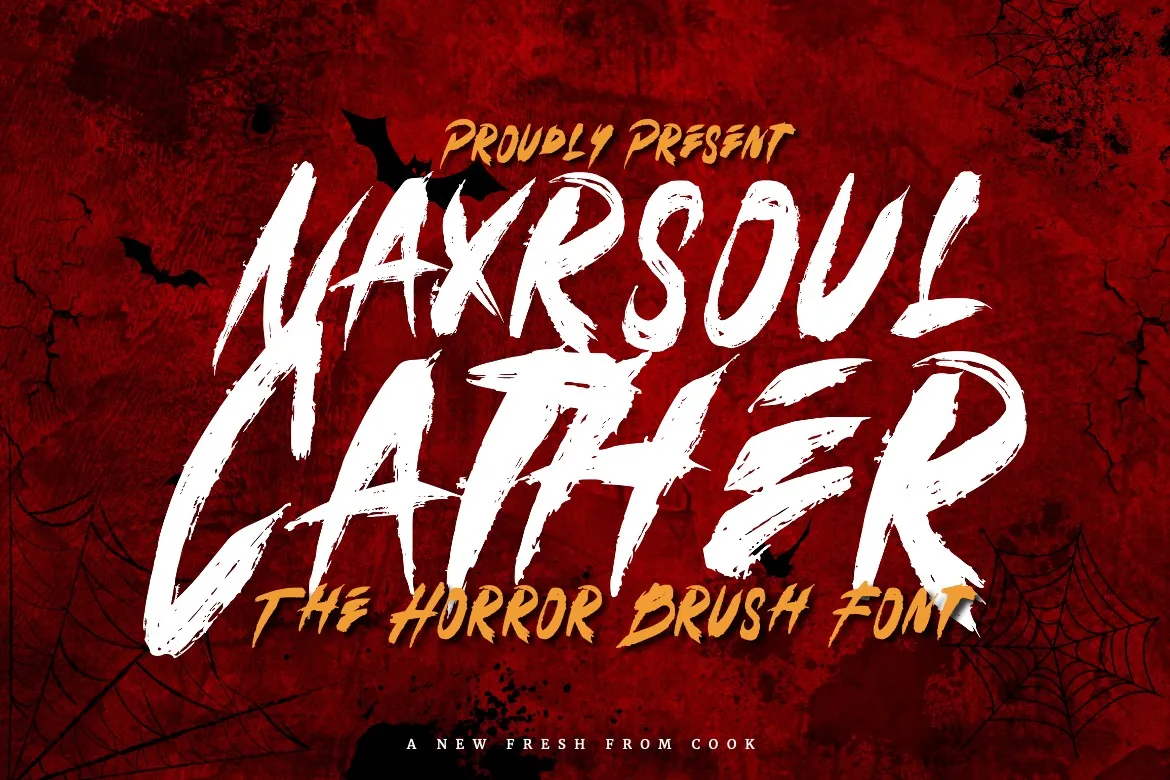
Dripping with gothic terror, this font transforms horror movie titles, occult tattoos, and Halloween merch into nightmares.
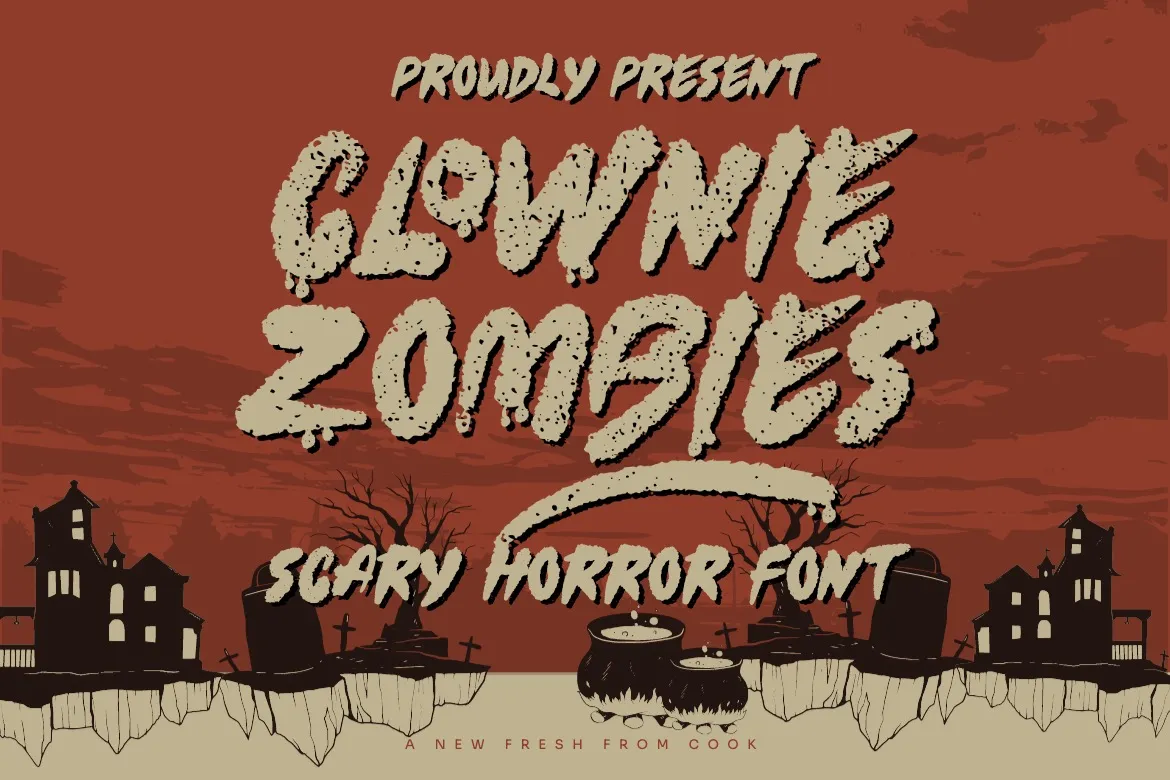
This font blends dripping ink style with chunky body, making it look like a spooky clown. It’s a versatile choice for quirky Halloween poster designs or creative social media posts.
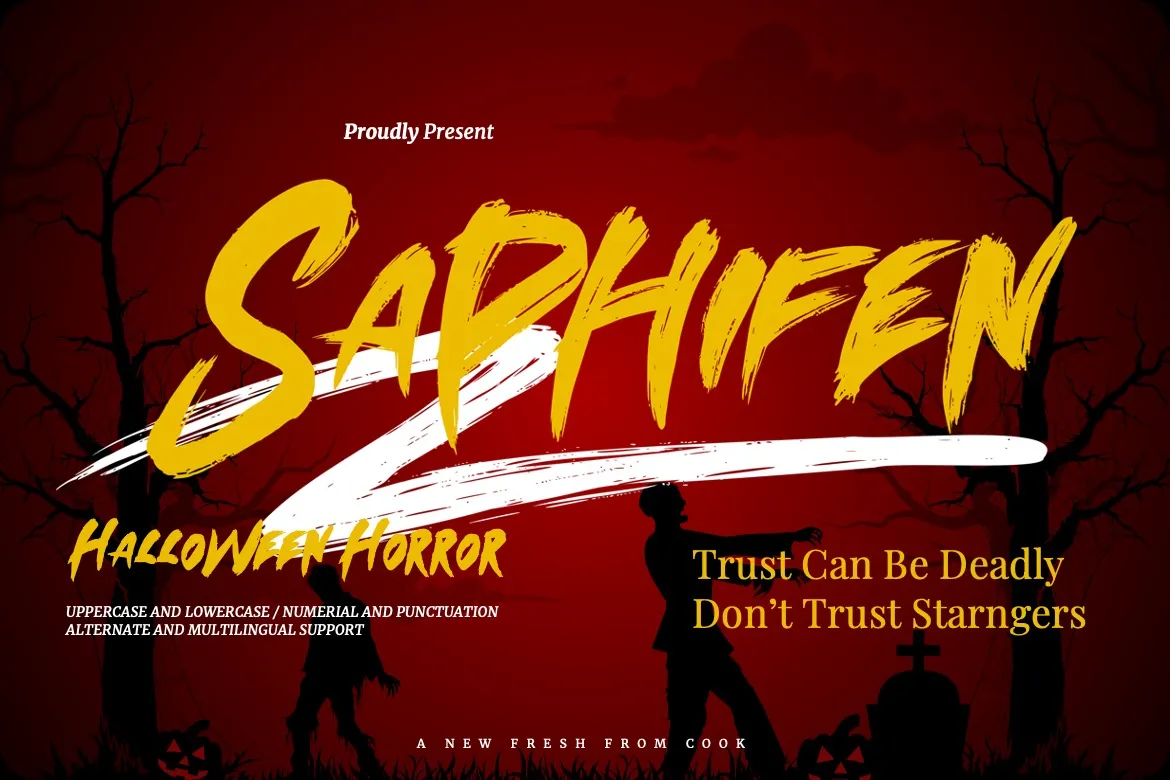
This violently elegant typeface bleeds horror into everything from pumpkin patch banners to tattoo parlour signs and heavy metal album art.
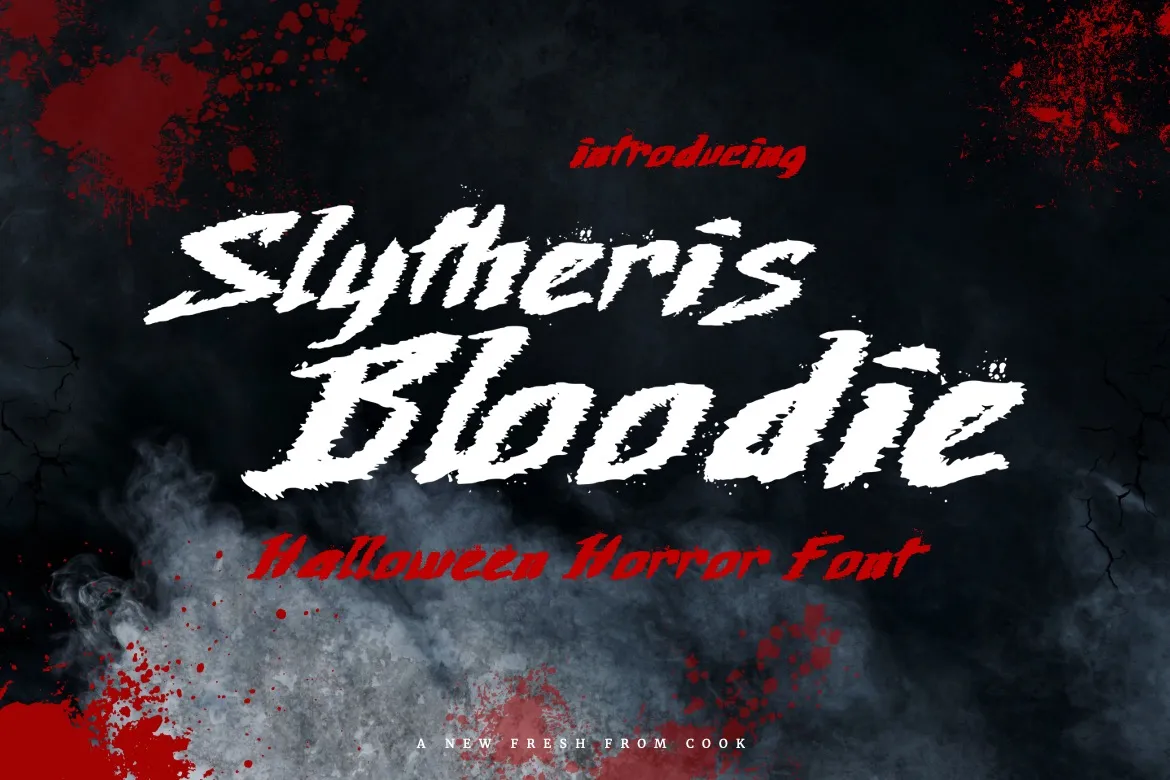
Slytheris serves as the best font for a Halloween poster. While featuring gritty textures, it still accommodates decent readability through its classic serif strokes.
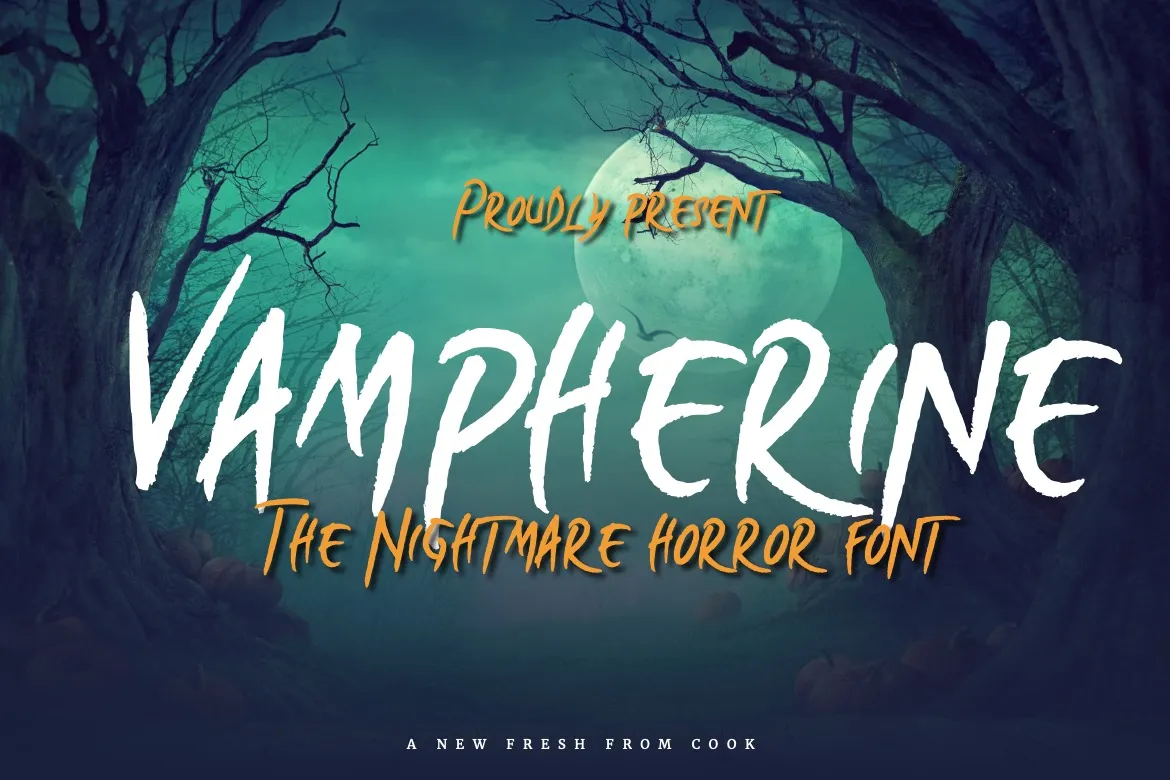
Elegantly terrifying, this font elevates Halloween invites, gothic branding, and luxury horror packaging with its blood-tinged lettering.
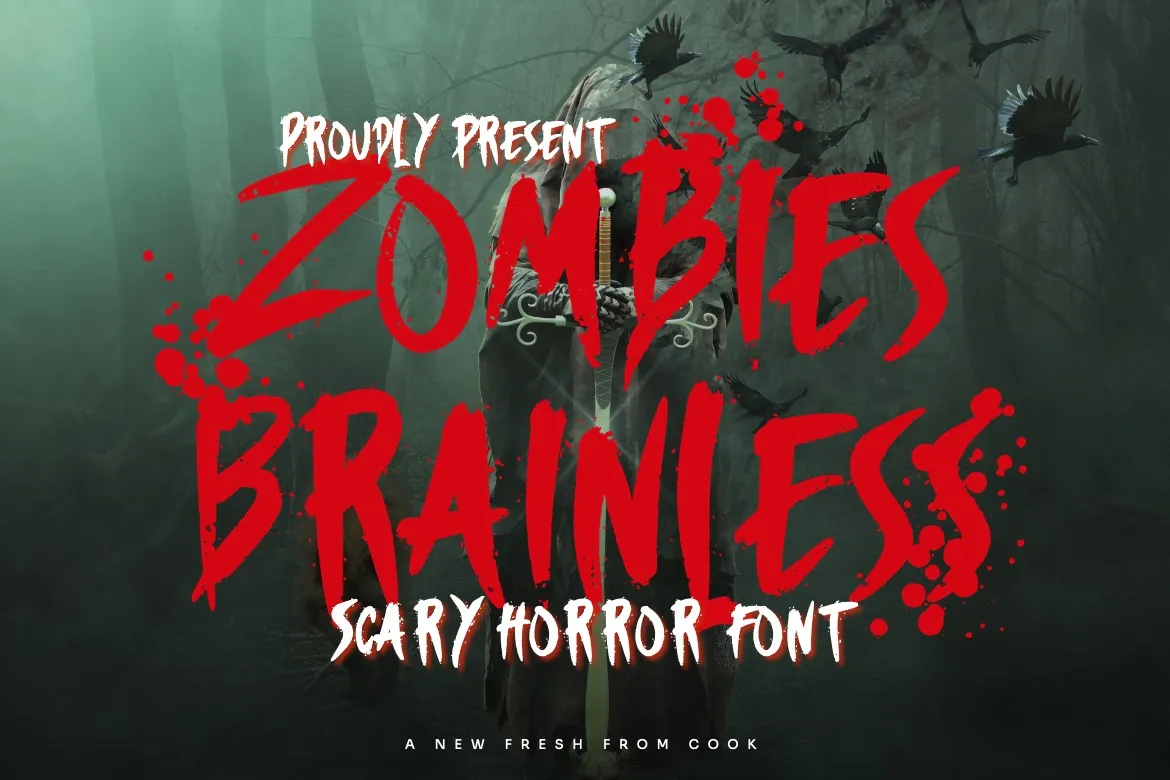
This distorted, decayed typeface gives a chaotic and classic zombie horror tone. With distressed details, you can surely use it to infuse a grotesque, brain-craving vibe.
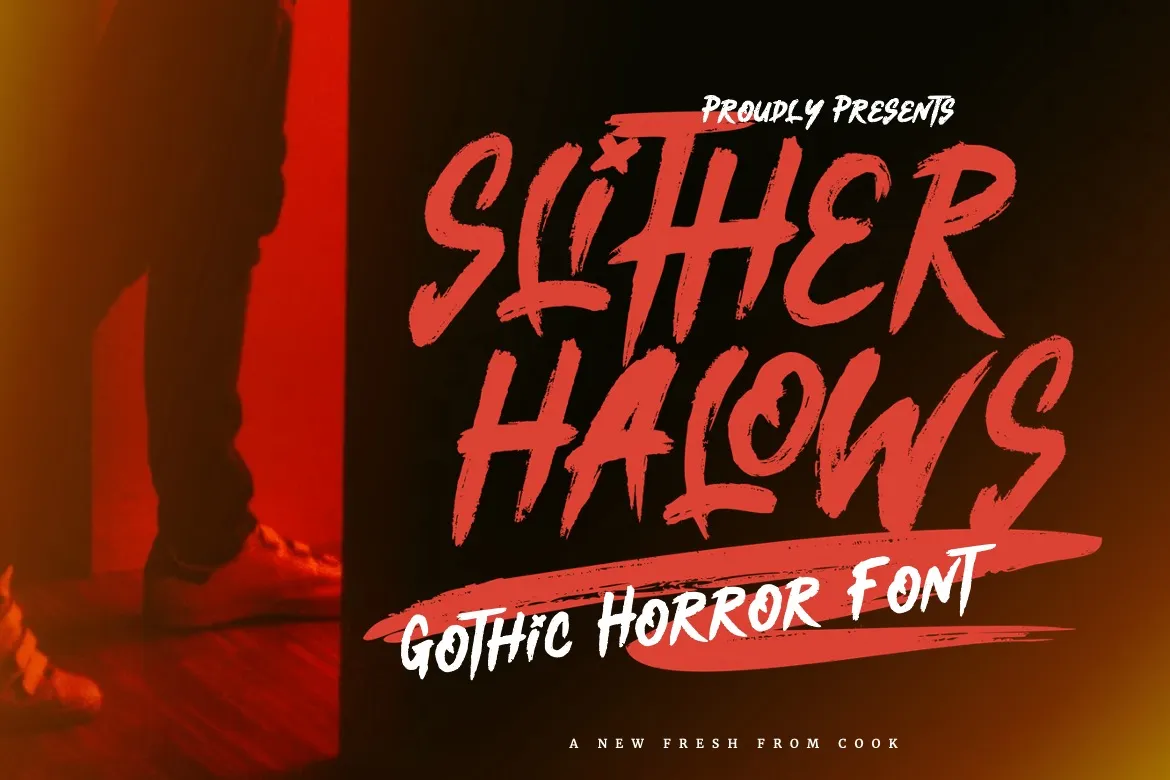
Slither Halows fuses vintage gothic artistry with sharp edges, shadowy curves, and antique letterforms. Other than the thematic designs, you can use it for men’s product tags or product packaging designs.
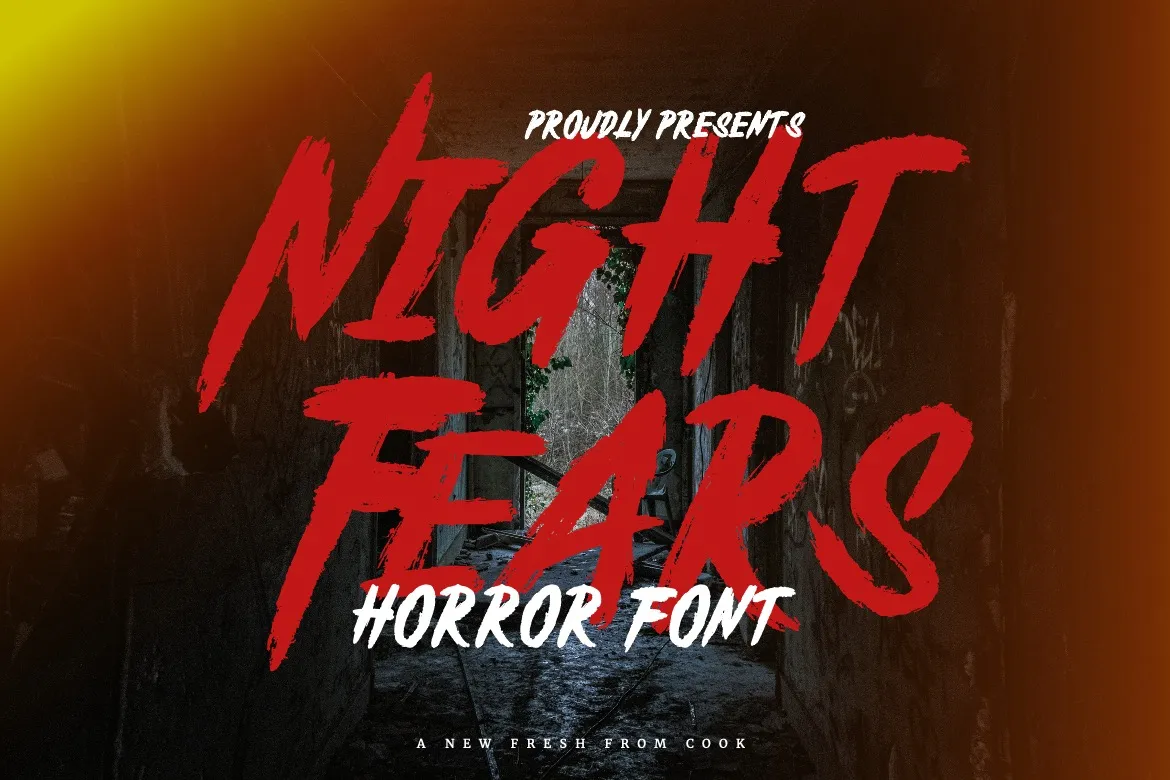
Night Fears is perfect for spine-chilling designs, ideal for posters, social media, and Halloween-themed projects. This font has that particular blood-curdling vibe, making it the best font to use for Halloween creative projects.
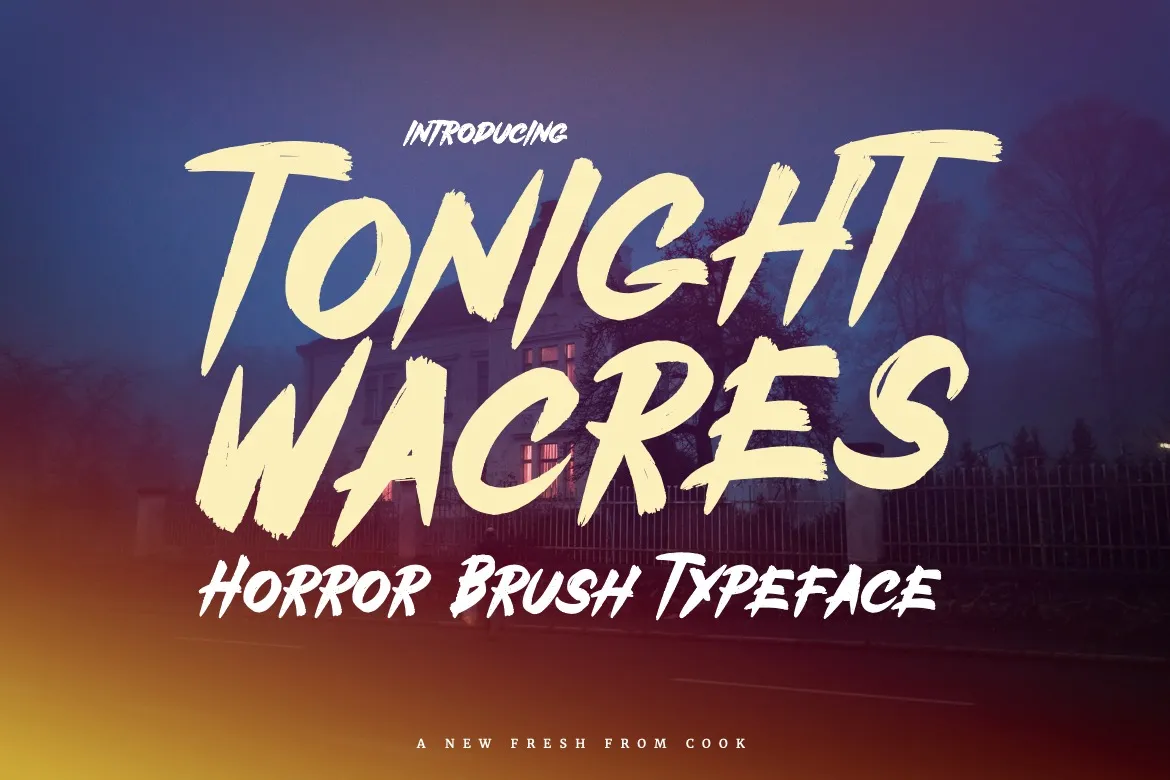
Tonight Wacres brings bold and clear anatomy. With its brush style, this typeface works perfectly for Halloween party invites, horror YouTube thumbnails, and even merchandise design with a witty horror style or adventurous vibe.
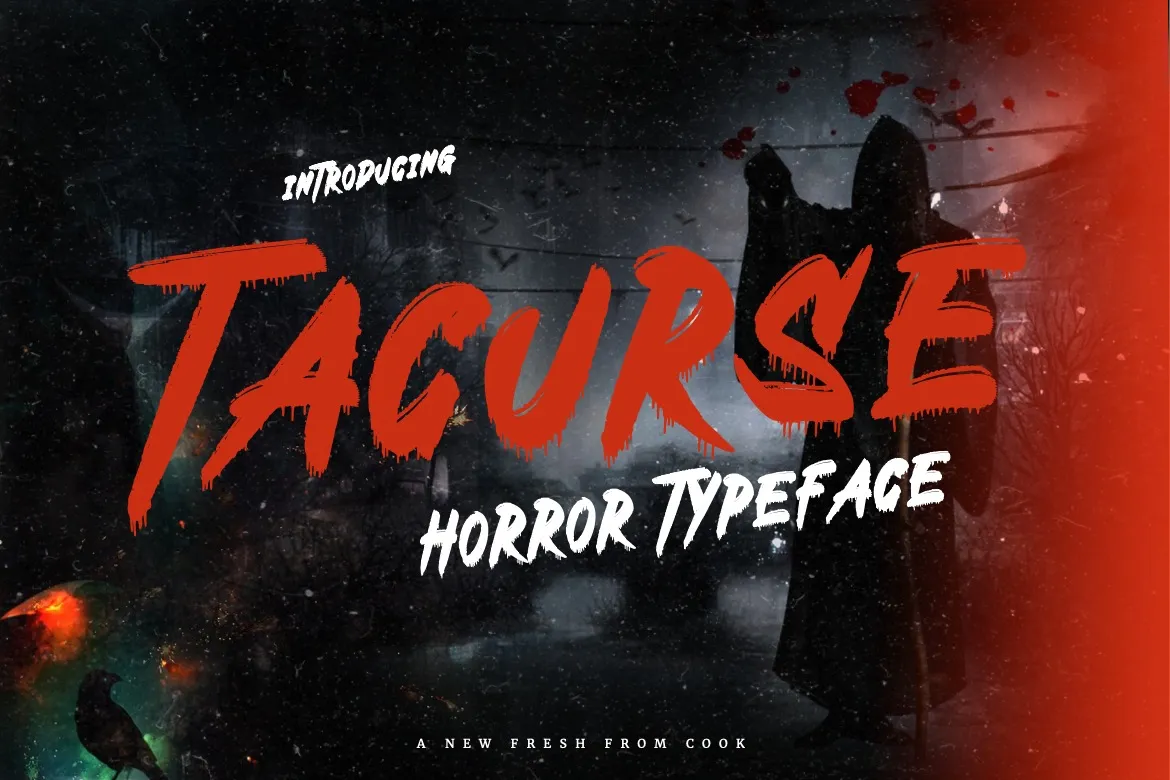
Blood-like dripping ink always goes hand-in-hand with eeriness. But Tacurse has a proportional amount of it, making it also suitable for any design with a street-style theme aside from a horror vibe.
Trovinek offers a different texture to the brush-style typeface foundation. While infusing spookiness, that feature makes display designs stand out and look edgy.
Fearost brought an aesthetic, spine-chilling design. This is the best font for Halloween poster, a movie poster, or a heavy metal album cover.
Whether you’re crafting a horror game logo or a spine-tingling social media post, Berscare delivers unmatched versatility and dread-filled impact.
What is the best font for Halloween with a comical style? We give you Frankenstay with a handwritten style. It adds a fun and friendly twist to the horror design theme.
This font articulates hand hand-painted texture that gives raw, monstrous energy. You can opt for this typeface to infuse your album, streetwear, YouTube thumbnails, or horror posters with a synical, comical touch.
Dripping with haunting charm, this font elevates vintage horror books, Halloween invites, and grunge merch. The brush style in this font is rather clean and rectangular, offering a minimalist appearance.
Typically, the best font for Halloween has a brush style as its foundation. Still, they have different approaches in texture, basic shape, and strokes. These will set the tone and add visual depth, making your thematic designs speak louder in the crowd.
While these fonts highly suit horror themes, they also make a good pair with other thematic demands. Besides, you can leverage them for various projects, from display, posters, to social media posts, and product packaging.